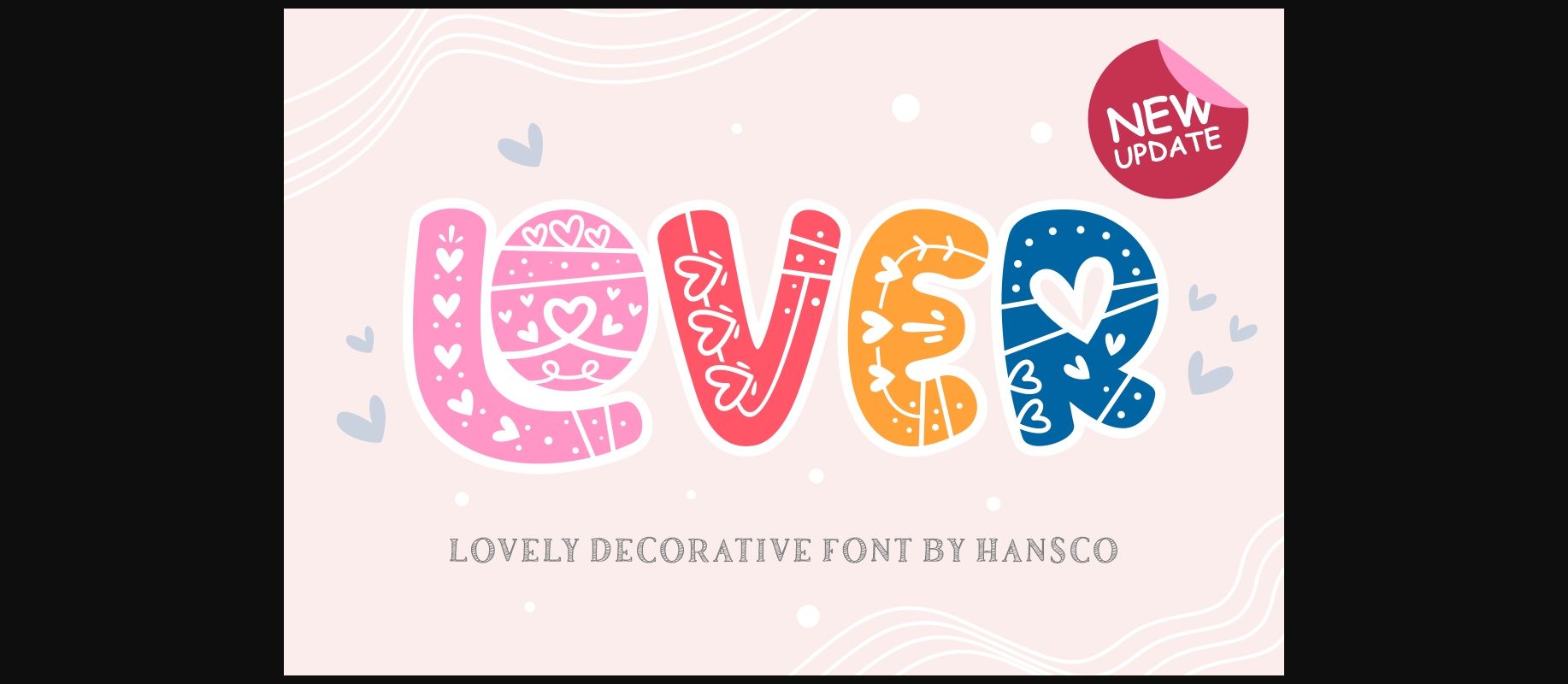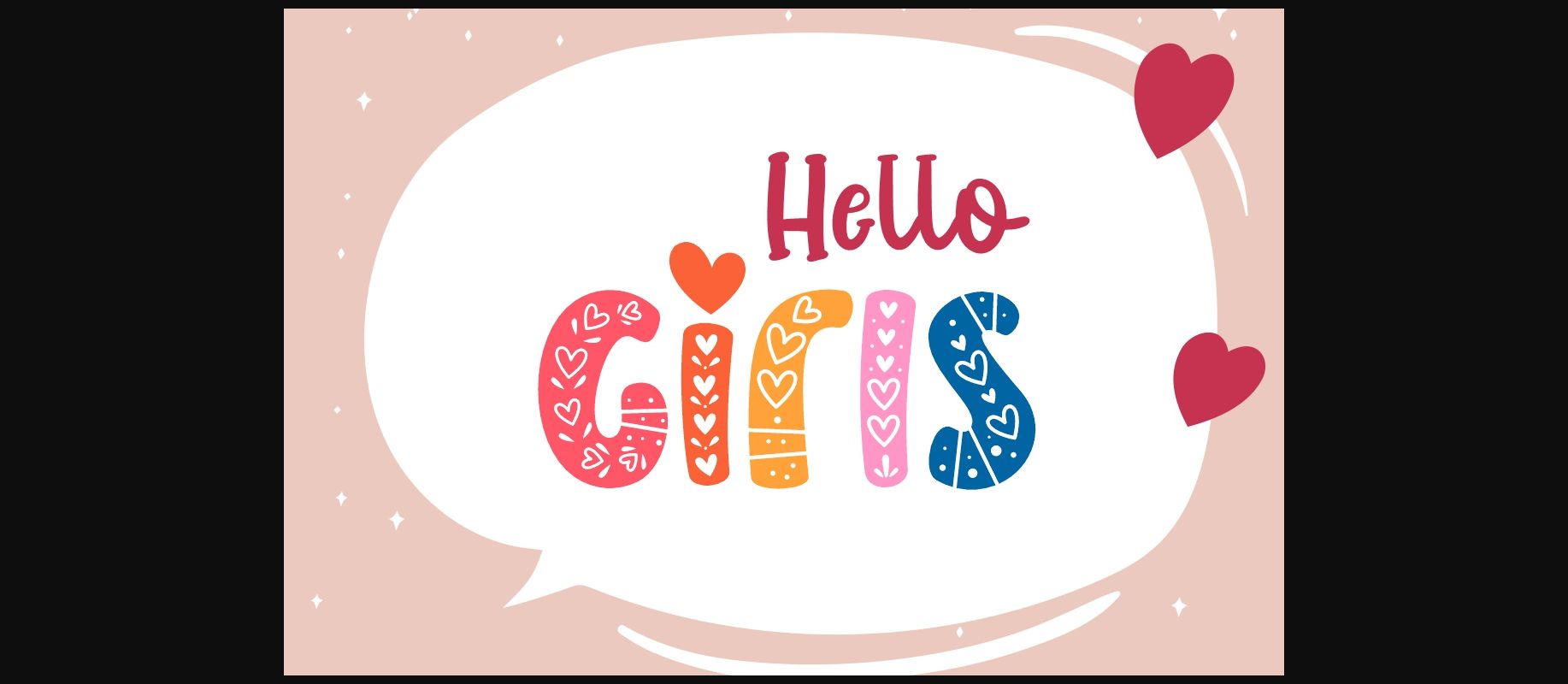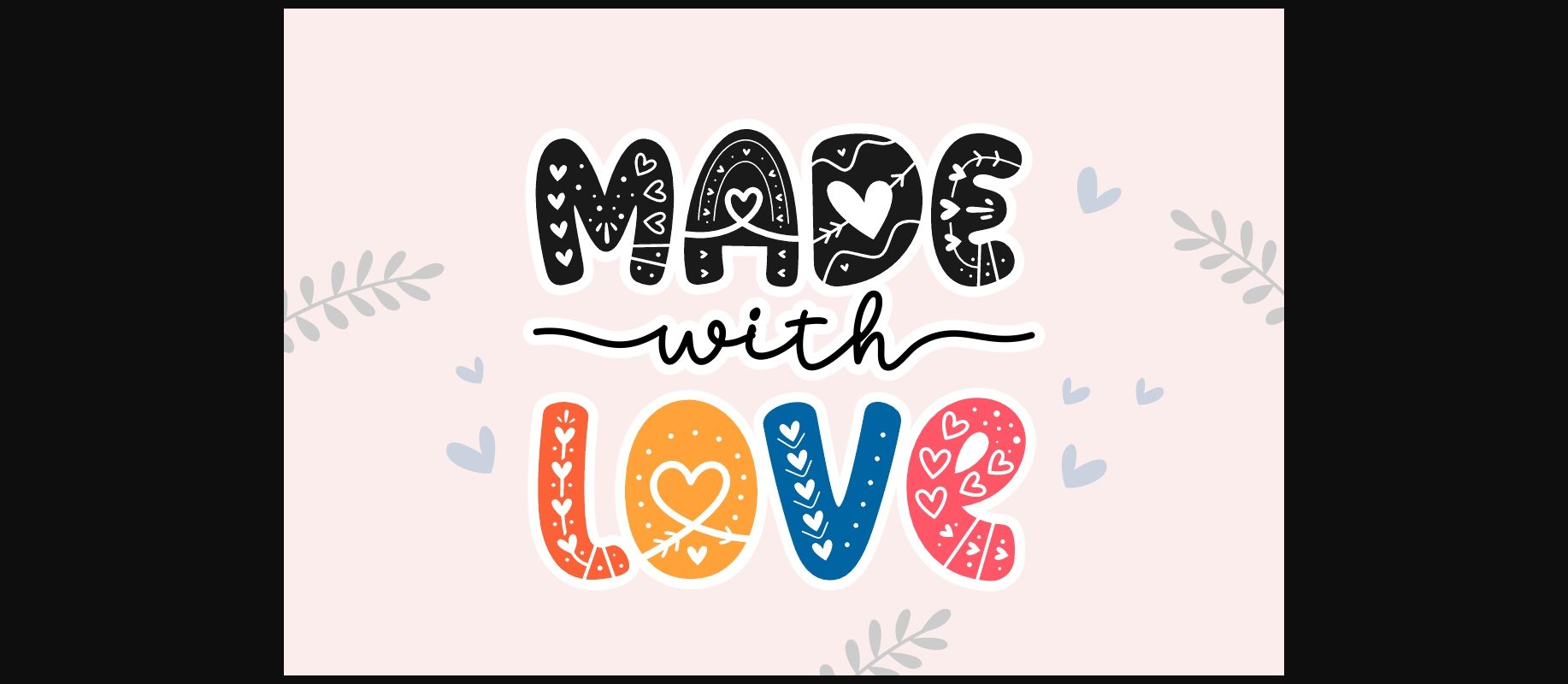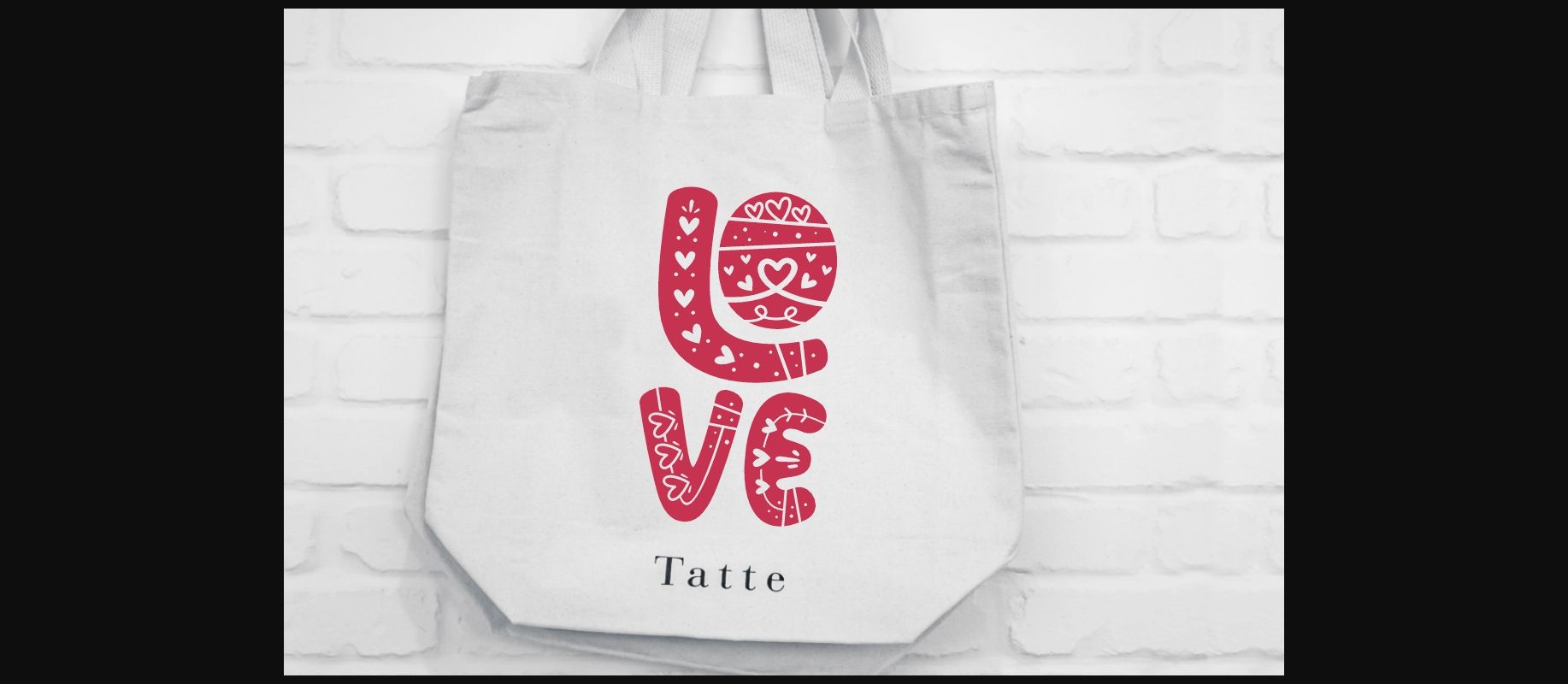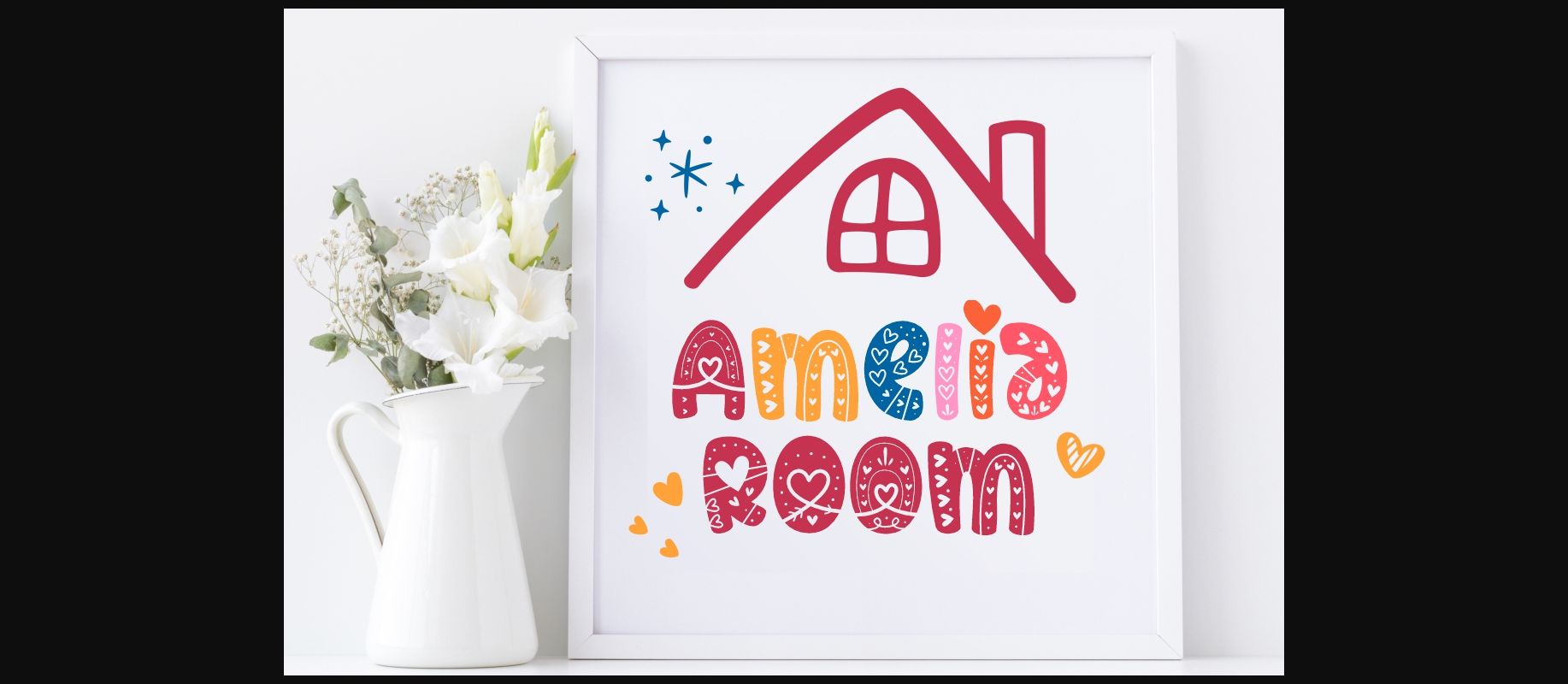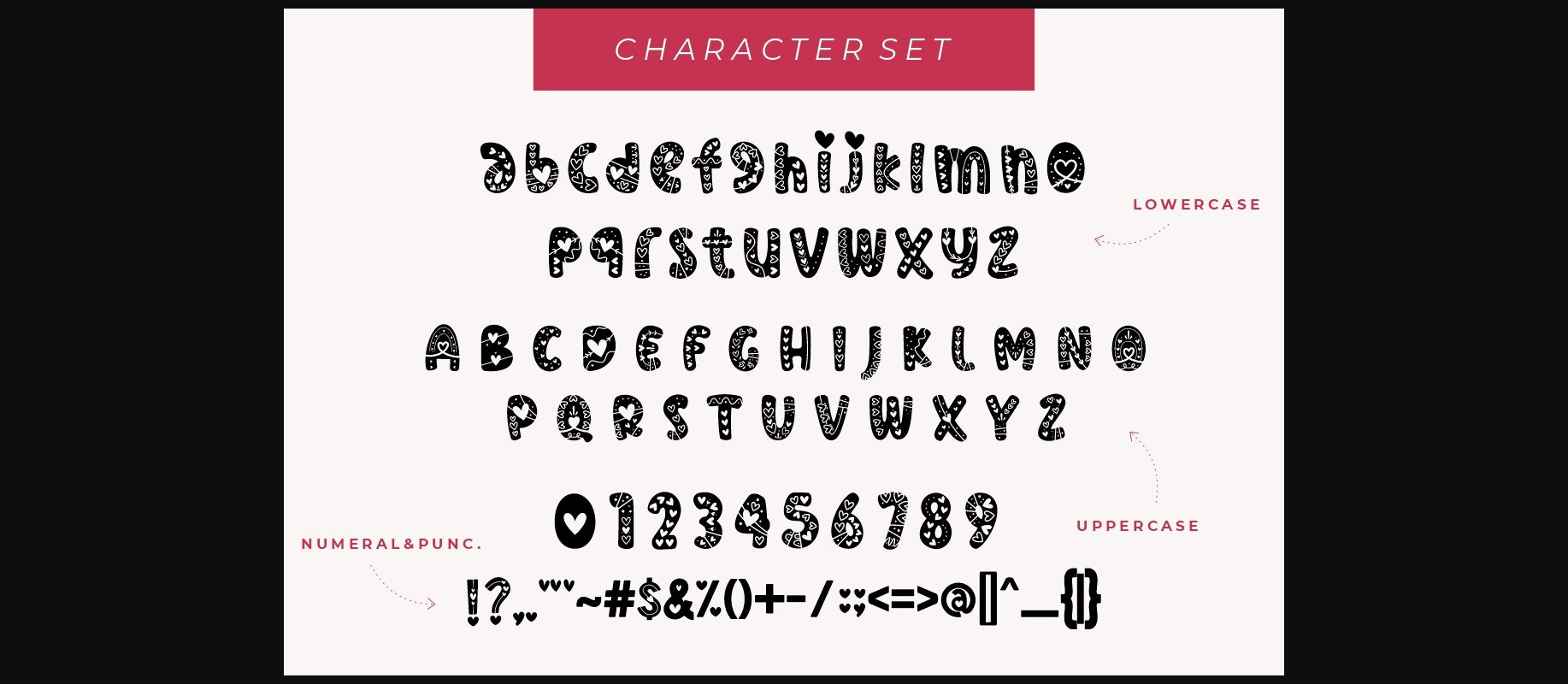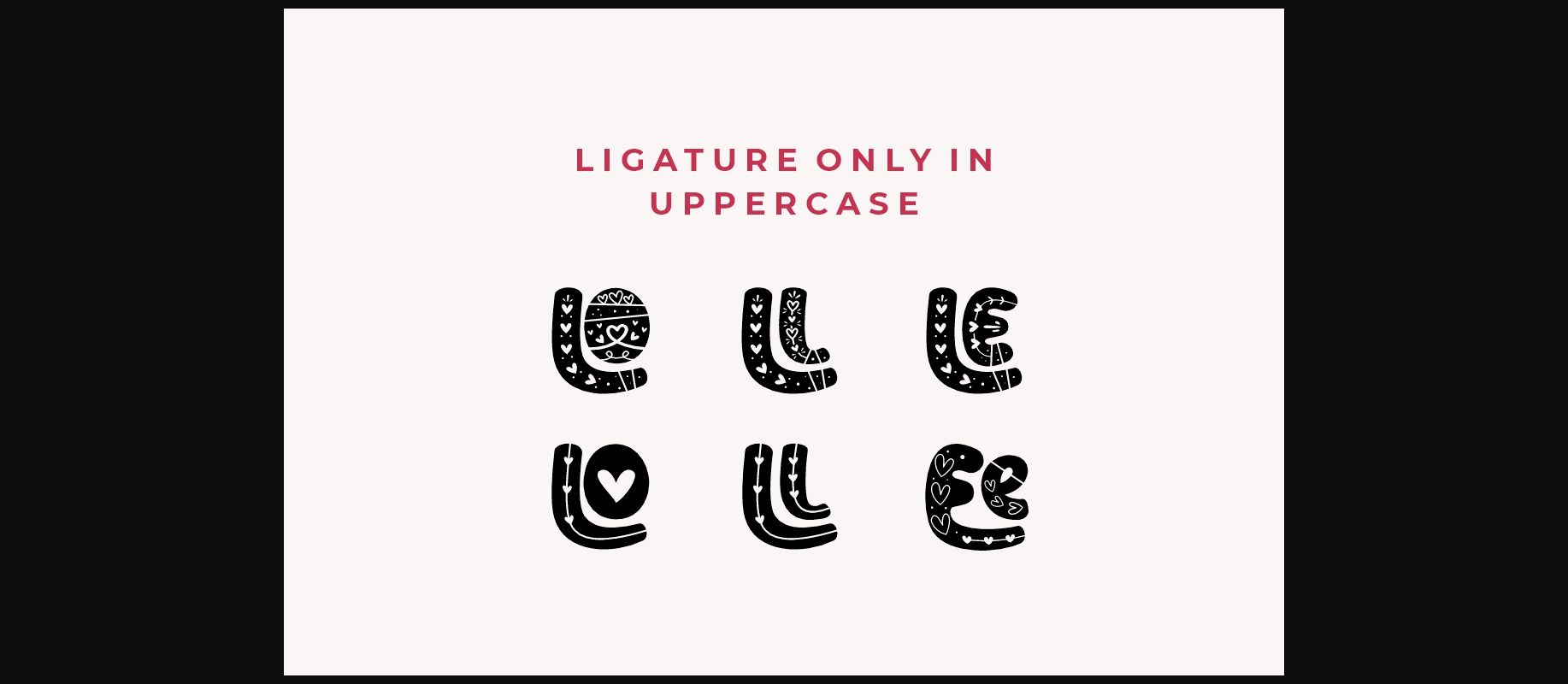
Lover Font Font
About Lover Font
Lover is a cool, friendly and cute decorative font. Whether you use it for cartoon related designs, children games or just any creation that requires a lovely touch, this font will be an amazing choice.